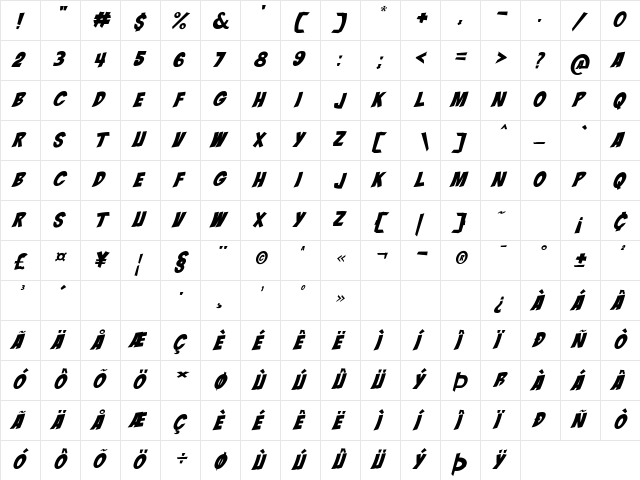
Dunkelheit Italic Regular
Design Context for Dunkelheit Italic Typeface
Dunkelheit Italic offers clean, dependable letterforms without strong stylistic allegiance, making it a practical choice for designers who need flexibility. The slanted form adds forward momentum and visual energy.
Pro Tip: Use Dunkelheit Italic for emphasis, pull quotes, and subheadings where its slanted energy can add rhythm to the layout.